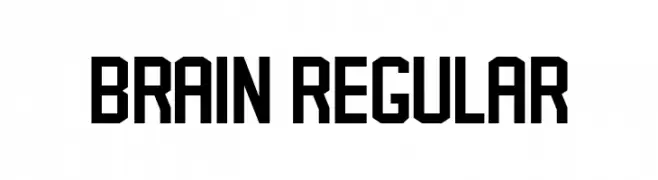
A bold, playful handwritten font with smooth, flowing curves.
A playful, decorative font with bold, rounded characters and dotted patterns.
A playful, hand-drawn font with bold, rounded characters and a whimsical style.
A bold, playful font with a hand-drawn, organic style.
A bold, slab serif typeface with strong, thick strokes and a modern yet classic appeal.
A bold slab serif font with a double outline, ideal for collegiate themes.
A bold slab serif font with a classic yet modern appeal.
A modern slab serif font with geometric shapes and consistent strokes.
A flowing, cursive font with elegant and sophisticated styling.
A lively and expressive handwritten font with fluid strokes and a playful elegance.
A graceful and flowing script font with elegant, continuous strokes.
A flowing, cursive script with elegant loops and swashes.
A playful, narrow font with rounded edges and consistent stroke width.
A playful, flowing script font with smooth, rounded curves and connected letterforms.
A playful and elegant script font with flowing, cursive letters.
A playful, modern font with rounded edges and consistent stroke width.
A rough, textured font with a handcrafted, vintage feel and rounded edges.
A playful and elegant script font with flowing, cursive letters.
A modern, elegant script font with flowing, cursive letters and artistic flourishes.
A playful, bold font with rounded edges and a hand-drawn style.
An elegant script font with flowing, graceful curves and sophisticated flair.
An elegant, flowing script font with bold, expressive uppercase and smooth lowercase letters.
A slanted, elegant script font with smooth, flowing strokes.
A dynamic, cursive script font with elegant loops and swirls.
A bold, angular font with a futuristic and edgy design.
A bold, geometric font with sharp angles and a modern style.
A bold, geometric font with sharp angles and a modern aesthetic.
A geometric and angular font with a modern, sleek design.
A dynamic and flowing script font with elegant, cursive letterforms.
A bold, modern font with strong, impactful characters.
A cursive, handwritten font with elegant, flowing strokes and a sophisticated style.